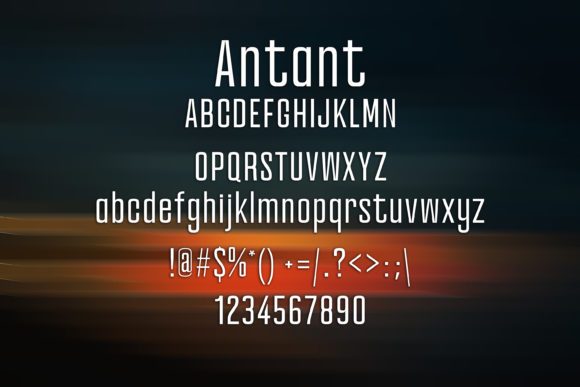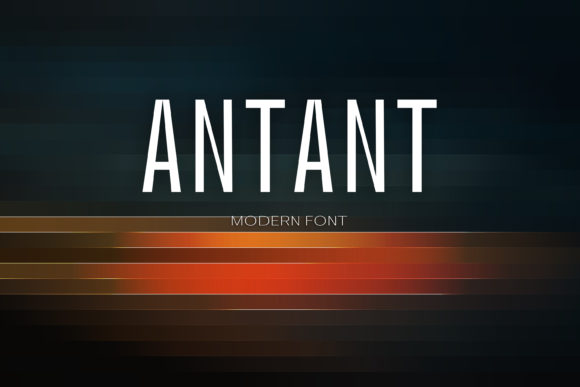
Introducing Antant Font: A Modern Twist on Traditional Sign Painting
In the world of typography, fonts play a crucial role in conveying messages, expressing creativity, and setting the tone for a brand or design. For designers and crafters, finding the perfect font can be a daunting task, especially when looking for something that combines classic inspiration with modern flair. This is where Antant Font comes in – a stunning sans serif font that draws inspiration from traditional sign painting, with a clean and minimal twist.
The Inspiration Behind Antant Font
Antant Font is rooted in the traditional art of sign painting, a craft that has been around for centuries. Sign painting involves creating eye-catching lettering and designs to advertise businesses, products, or services. The art form requires skill, patience, and attention to detail, resulting in beautiful, hand-crafted works of art. Antant Font takes the essence of traditional sign painting and infuses it with a modern twist, making it perfect for contemporary designs.
What Makes Antant Font Unique?
Antant Font boasts a range of characteristics that make it stand out from other fonts. Its sans serif design provides a clean and minimal aesthetic, making it versatile for various design applications. The font’s inspiration from traditional sign painting gives it a distinctive charm, adding a touch of warmth and personality to any design. The modern twist ensures that Antant Font remains fresh and relevant, suitable for modern brands and designs.
Key Features of Antant Font
• Clean and Minimal Design: Antant Font features a sleek, sans serif design that exudes modernity and sophistication.
• Traditional Sign Painting Inspiration: The font’s roots in traditional sign painting add a touch of classic charm and character.
• Modern Twist: Antant Font’s modern twist ensures it remains fresh and relevant for contemporary designs.
• Versatile: The font’s clean design makes it suitable for a wide range of design applications, from branding and advertising to packaging and digital media.
Why Designers and Crafters Love Antant Font
Antant Font has quickly become a favorite among designers and crafters due to its unique blend of classic inspiration and modern style. The font’s versatility and legibility make it perfect for various design projects, from logos and branding to signage and digital media. Additionally, Antant Font’s clean and minimal design ensures it pairs well with a range of other design elements, allowing designers to create cohesive and visually appealing designs.
Using Antant Font in Your Designs
Antant Font is incredibly easy to use and can be applied to a wide range of design projects. Here are a few ideas to get you started:
• Branding and Logos: Use Antant Font to create a unique and memorable brand identity.
• Signage and Advertising: Take inspiration from traditional sign painting and create eye-catching signage and advertising materials.
• Digital Media: Use Antant Font in digital media, such as social media graphics, website headers, and email newsletters.
• Packaging and Product Design: Add a touch of modern elegance to your packaging and product designs with Antant Font.
Antant Font is a stunning sans serif font that combines the best of traditional sign painting with a modern twist. Its clean and minimal design makes it perfect for modern designs, while its unique inspiration adds a touch of character and personality. Whether you’re a designer or crafter, Antant Font is an excellent addition to your typography collection. With its versatility, legibility, and range of applications, Antant Font is sure to become a go-to font for creatives looking to add a touch of elegance and sophistication to their designs.